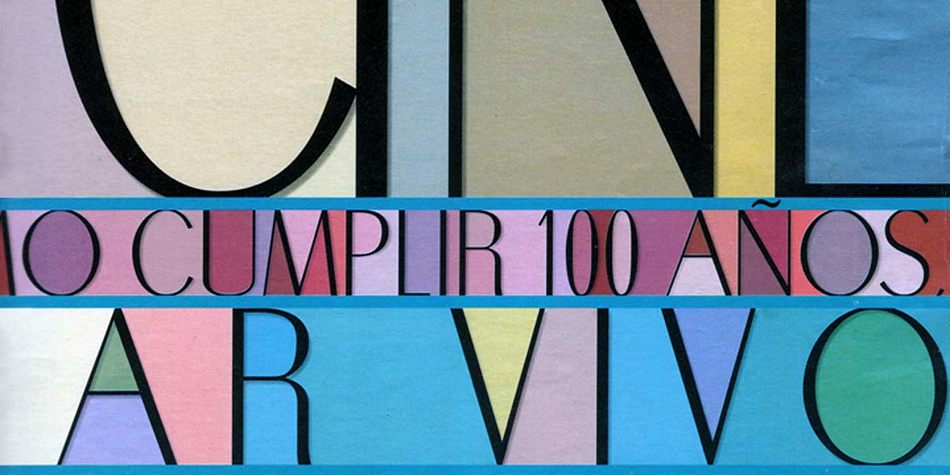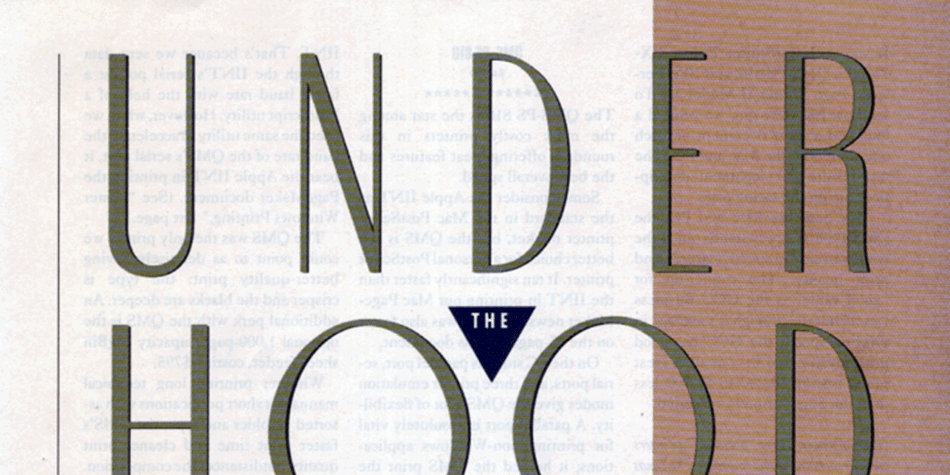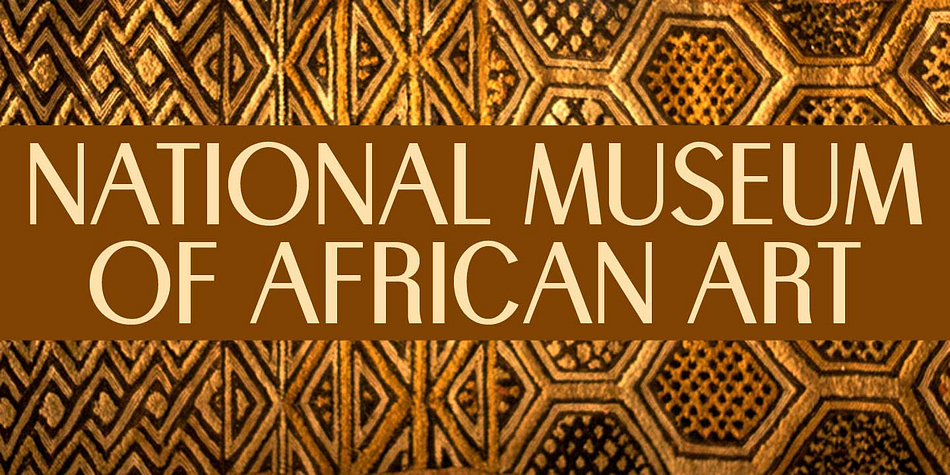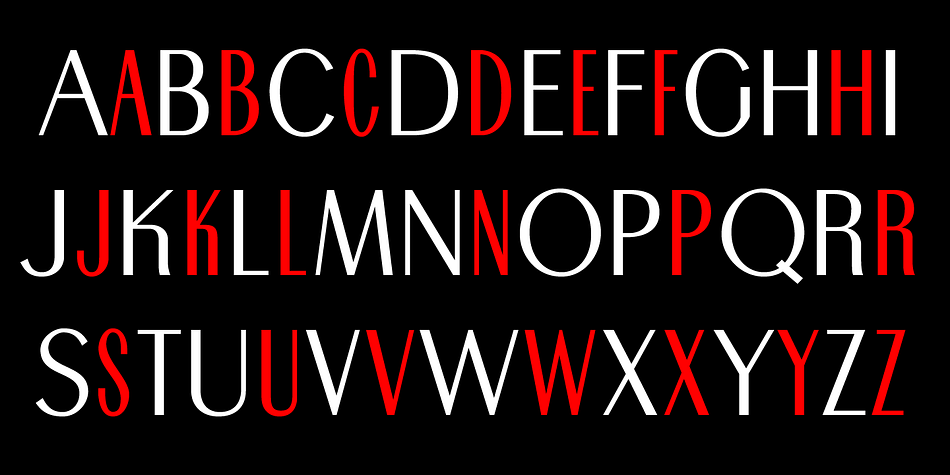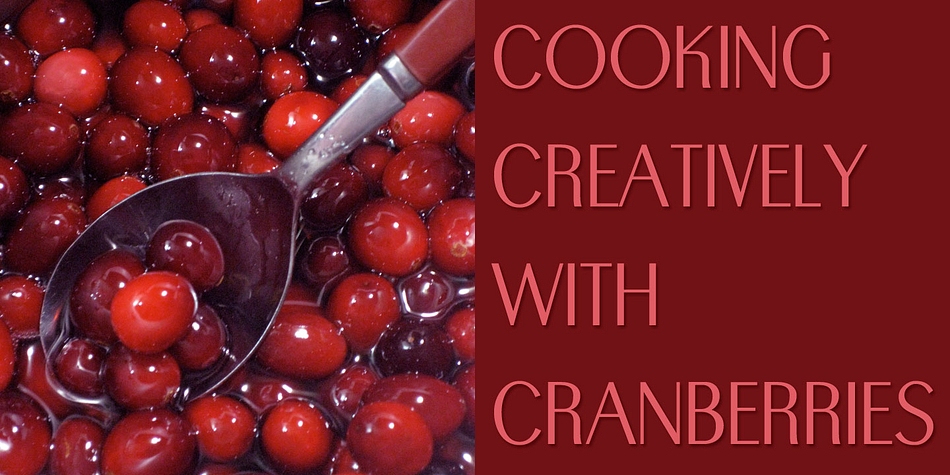
Trio CT is a retro, display sans and art deco font family. This typeface has three styles and was published by CastleType.
Trio CT is a beautiful art deco revival commisioned by Publish magazine in 1991. Trio Light is uppercase only, but includes two alphabets: one art deco style, the other modern. Trio CT is available in 3 weights: Light, Medium, and Bold.